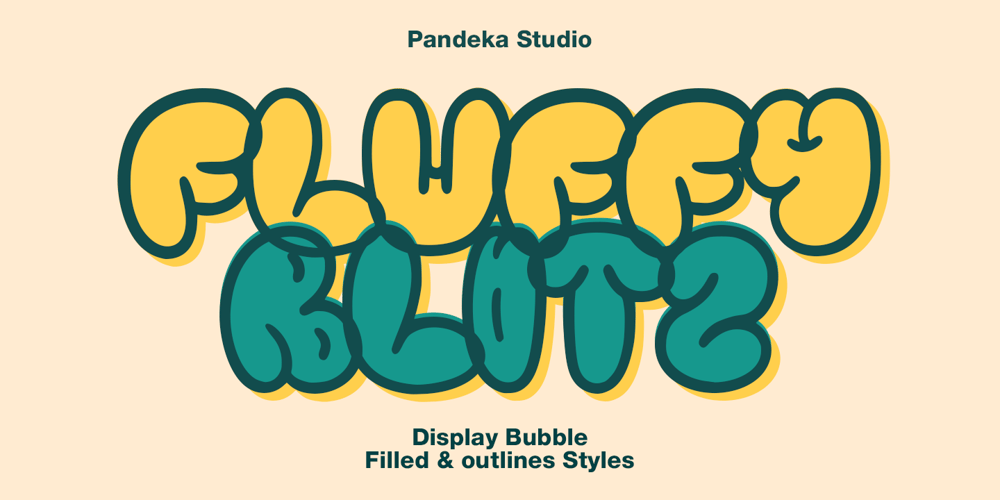
Fluffy Blitz
Fluffy Blitz font
Fluffy Blitz Font Family was designed by Sagara Nararya and published by Pandeka Studio. Fluffy Blitz contains 2 styles and family package options. Introducing Fluffy Blitz – Graffiti Bubble Font Say hello to Fluffy Blitz, a bold and playful graffiti bubble font that brings a vibrant energy to your designs! With its 2 styles: Filled and Outlines, Fluffy Blitz combines a fun, rounded, and balloon-like appearance with a touch of edgy street art vibes. This font is perfect for projects that want to make a statement, such as graffiti-inspired designs, posters, stickers, t-shirts, branding, or even creative social media posts.What’s Included: Main Files formats 2 Styles: Filled and Outlines Full Character Set: Uppercase, lowercase, numbers, symbols, and punctuation Easy to Use: Works on both PC & Mac Compatible with Adobe Illustrator, Photoshop, Microsoft Word, Canva, and other design software PUA Encoded: Fully accessible without extra software Language Support: Danish, English, Estonian, Filipino, Finnish, French, Friulian, Galician, German, Gusii, Indonesian, Irish, Italian, Luxembourgish, Norwegian Bokmål, Norwegian Nynorsk, Nyankole, Oromo, Portuguese, Romansh, Rombo, Spanish, Swedish, Swiss-German, Uzbek (Latin)Follow us on Instagram or visit our website for more updates and creative inspiration.Brought to you by Pandeka Studio